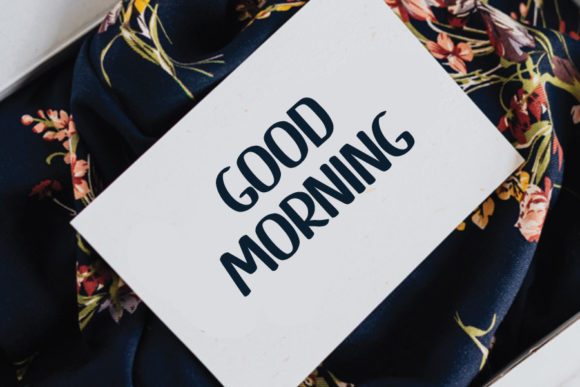
Simple Planer Font
db-ku.com - Script & Handwritten -- Simple Planer is a clean and adaptable handwritten font. No matter the topic, this font will be an incredible asset to your fonts’ library, as it has the potential to elevate any creation.